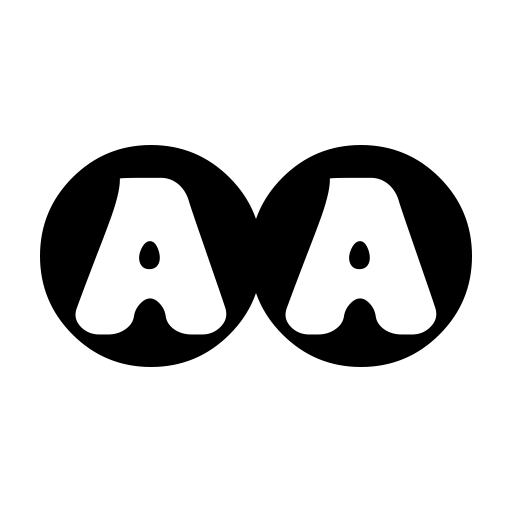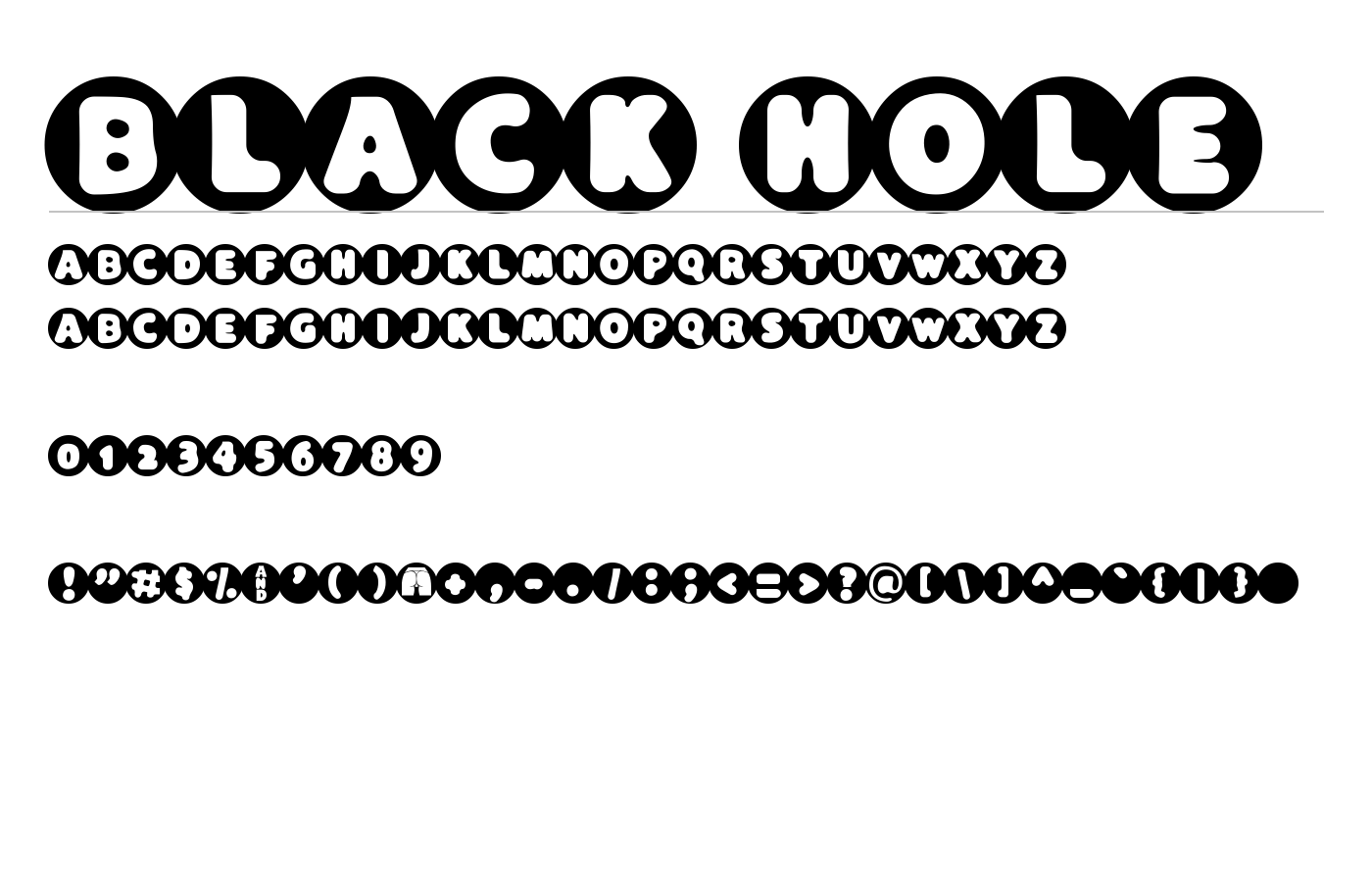
Black Hole Font is a bold, playful sans serif typeface with a rounded, bubbly style that creates a fun and approachable vibe. Its heavy weight and tight spacing make it ideal for eye-catching headlines, logos, and posters where a strong, cheerful personality is needed. This font works great for brands and designs aiming to stand out with a unique, whimsical look that feels modern yet friendly.
Black Hole Font
About Black Hole Font